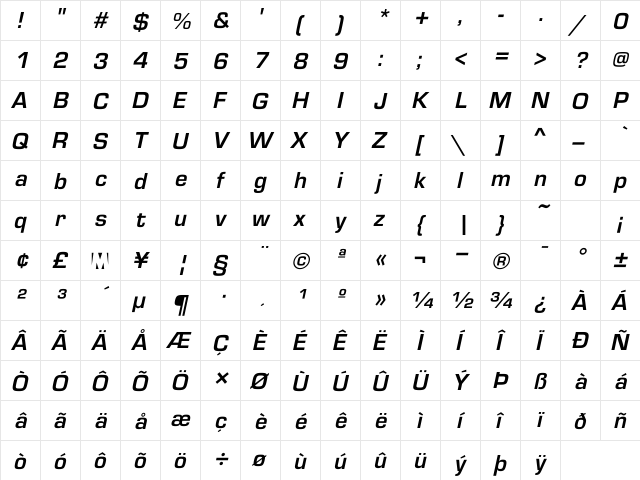
MicroSquare BoldOblique Font Preview
Design Context for MicroSquare Typeface
MicroSquare takes a measured approach to typography — its balanced proportions and neutral character make it a reliable workhorse for both digital and print work. The slanted form adds forward momentum and visual energy. The heavy weight commands attention and anchors typographic hierarchies.
Pro Tip: Try MicroSquare for annotation and caption copy alongside an upright companion — the contrast in angle creates a dynamic but ordered typographic system.